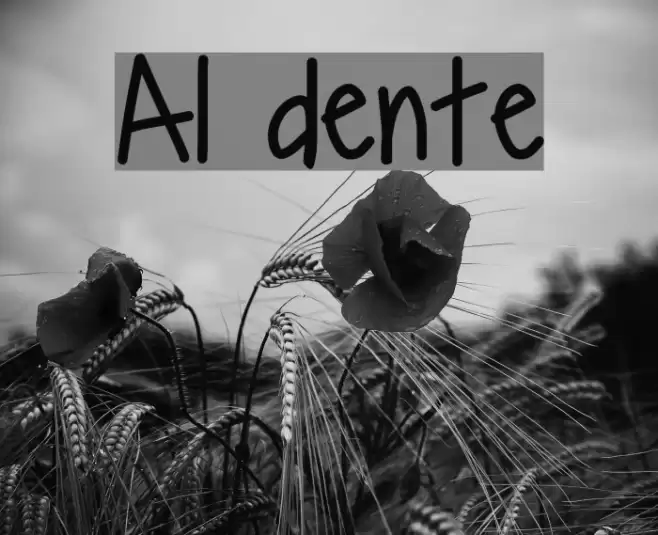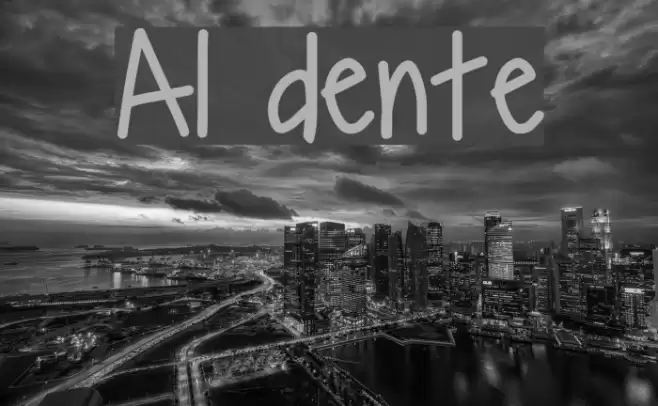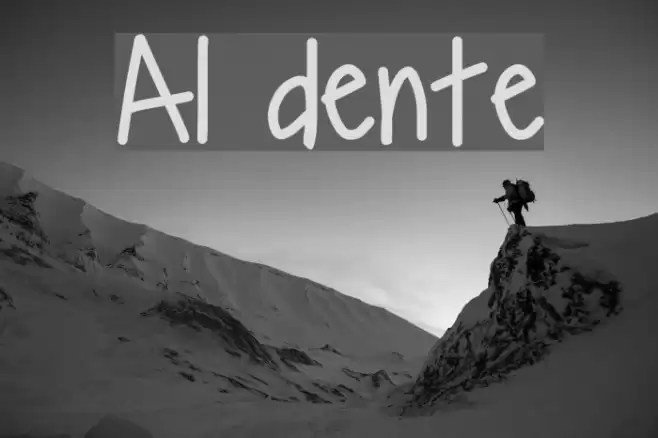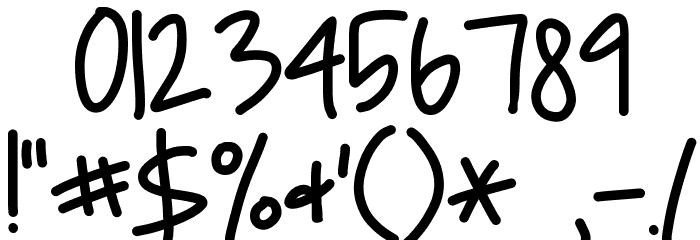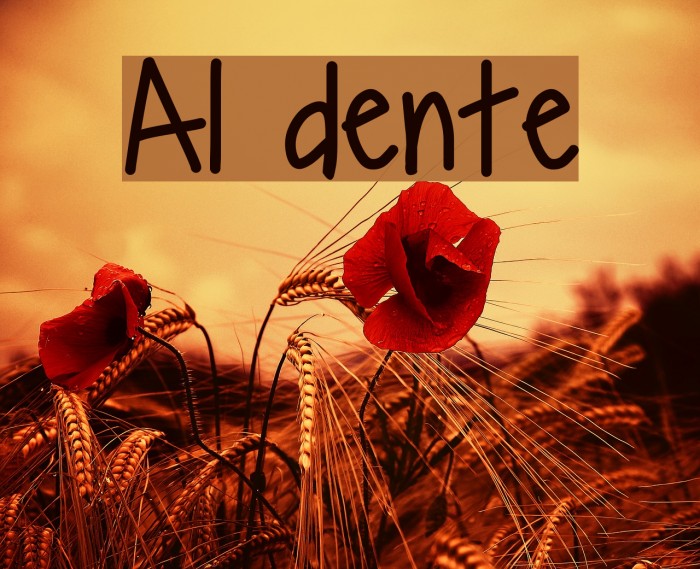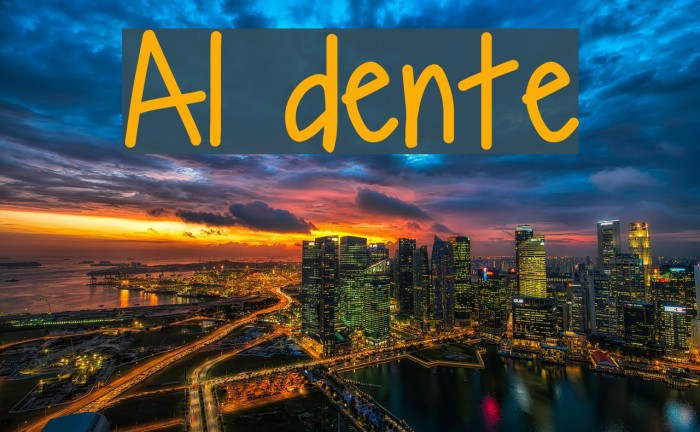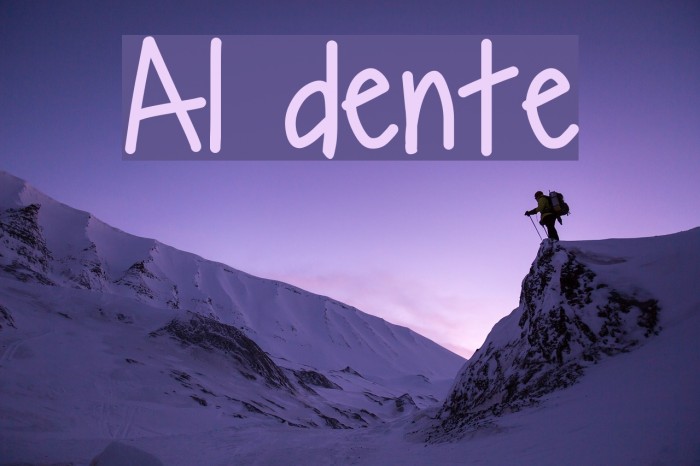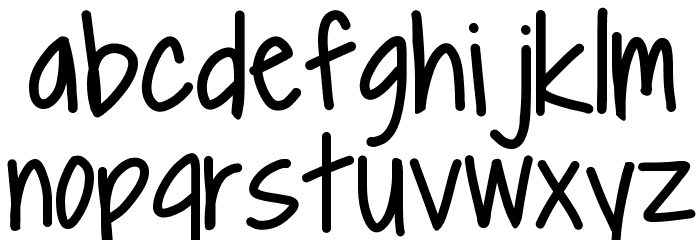
Al dente Font
Al dente Description
This font features a playful and casual handwritten style, characterized by its smooth, rounded strokes and slightly irregular letterforms. The uppercase and lowercase letters maintain a consistent flow, giving it a friendly and approachable appearance. The numerals and special characters are crafted with the same informal touch, making them blend seamlessly with the alphabet. Its overall design is simple yet expressive, perfect for conveying a relaxed and personal tone. The font's legibility is enhanced by its clear and distinct shapes, making it suitable for various creative projects.
A playful, casual handwritten font with smooth, rounded strokes from Uncategorized fonts.
- Proposed Projects: Ideal for greeting cards, children's books, casual branding, and social media graphics.
- Overall Style: Casual
- Use Case: Headlines, Informal text, Creative projects